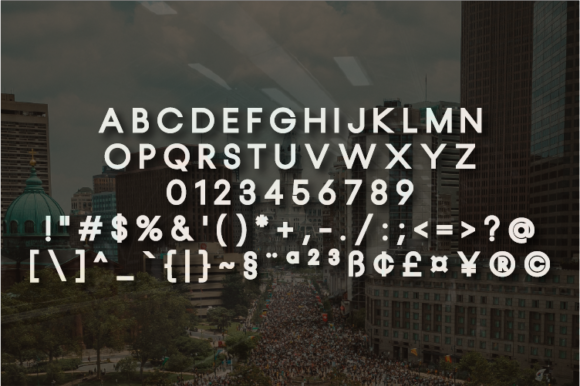
Introduction to Lacehun Font
Remember the moment when you finally find the perfect font to elevate your creative project? For designers, that moment is priceless. It’s the culmination of hours spent searching for the ideal design resource to bring your vision to life. And, that’s exactly what we’re excited to share with you – the Lacehun Font.
With its modern and elegant sans serif design, Lacehun Font is the perfect addition to any project. Its unique blend of smooth and sharp lines creates a visually striking effect that’s sure to impress. Whether you’re working on a branding project, designing a website, or creating a social media campaign, Lacehun Font is the perfect design companion.
Key Features of Lacehun Font
- High-quality, professional design suitable for various creative projects
- Includes a wide range of characters, including uppercase and lowercase letters, numbers, and special symbols
- Designed with a unique aesthetic, making it an excellent design resource for creative professionals
Honest Review: Lacehun Font
Lacehun Font is a beautifully crafted, free download that’s perfect for adding a touch of elegance to any creative project. I was blown away by the high quality of this design resource.
What works well: ✨ The intricate details and subtle textures of this font make it stand out from the crowd. It’s ideal for projects where you need a sophisticated, yet delicate look. The transparent background is also a major plus, allowing for seamless integration into any design.
- Perfect for elegant, creative projects
However, there are a few limitations to consider: ⚠️ The font can be quite dense, making it difficult to read at smaller sizes. Additionally, it may not be suitable for projects that require a bold, attention-grabbing font.
Overall, I’m thoroughly impressed with Lacehun Font. While it may not be perfect for every project, it’s a fantastic addition to any designer’s toolkit. If you’re looking for a high-quality, free font that exudes sophistication and elegance, Lacehun Font is definitely worth checking out.
Lacehun Font is a versatile design resource suitable for various creative projects, such as wedding invitations, social media graphics, and marketing materials. Its high-quality design and transparent background make it an ideal choice for designers and non-designers alike.